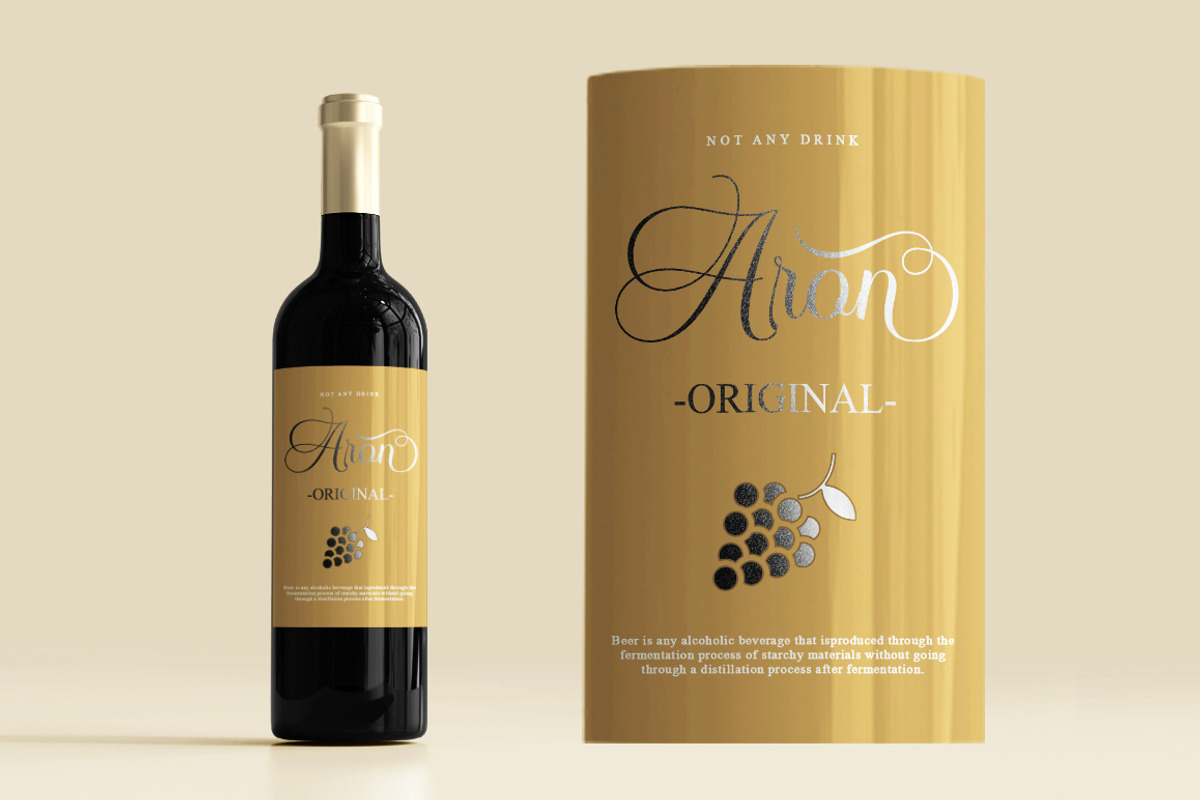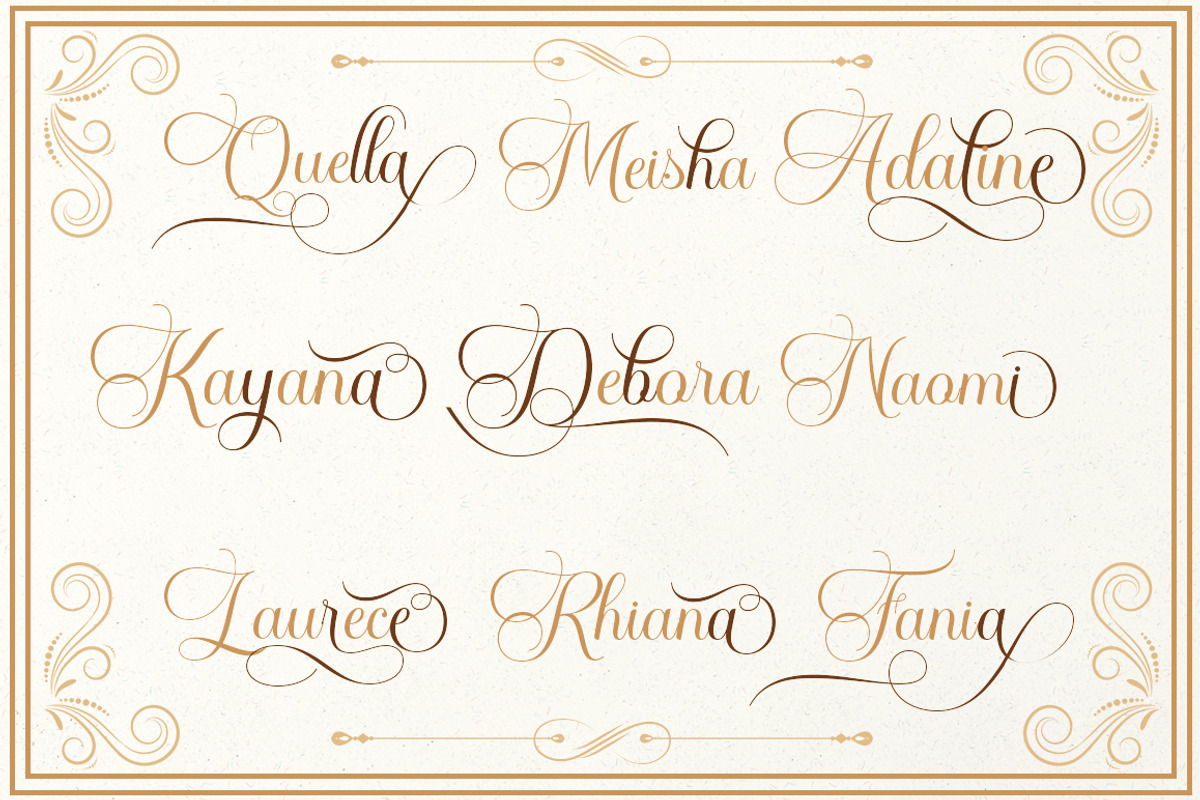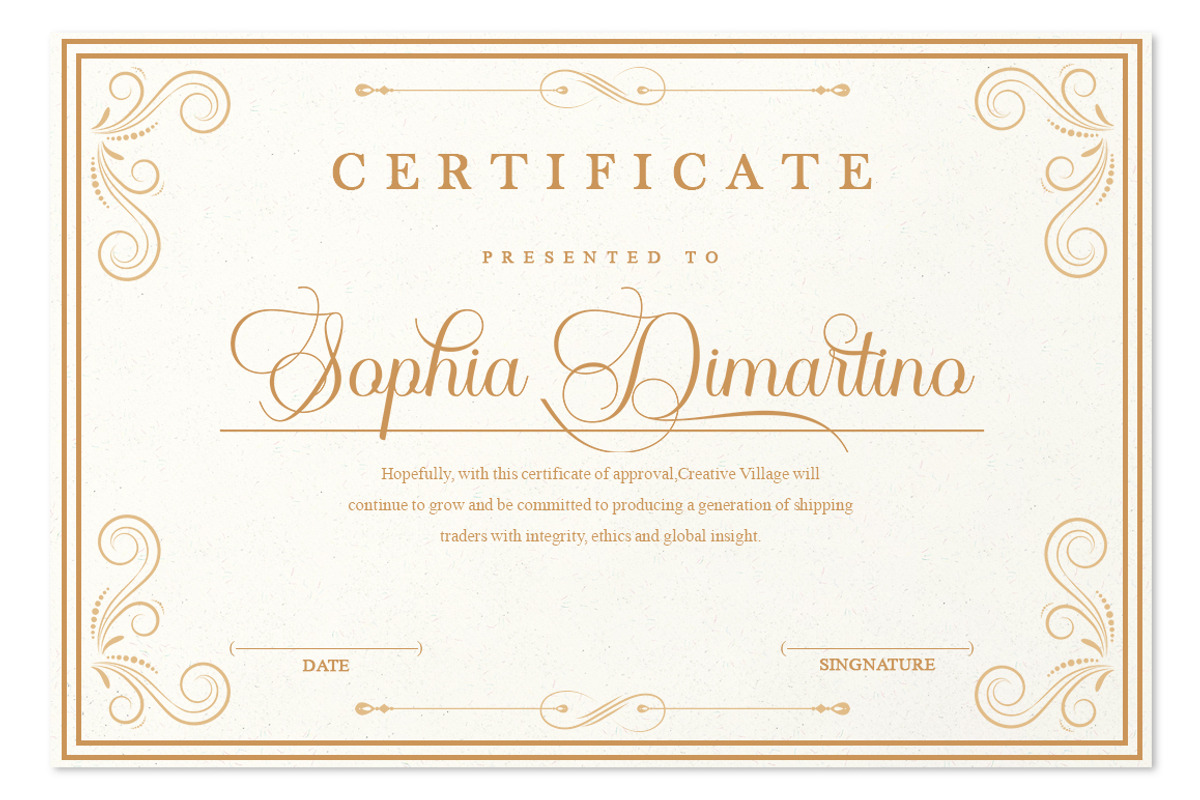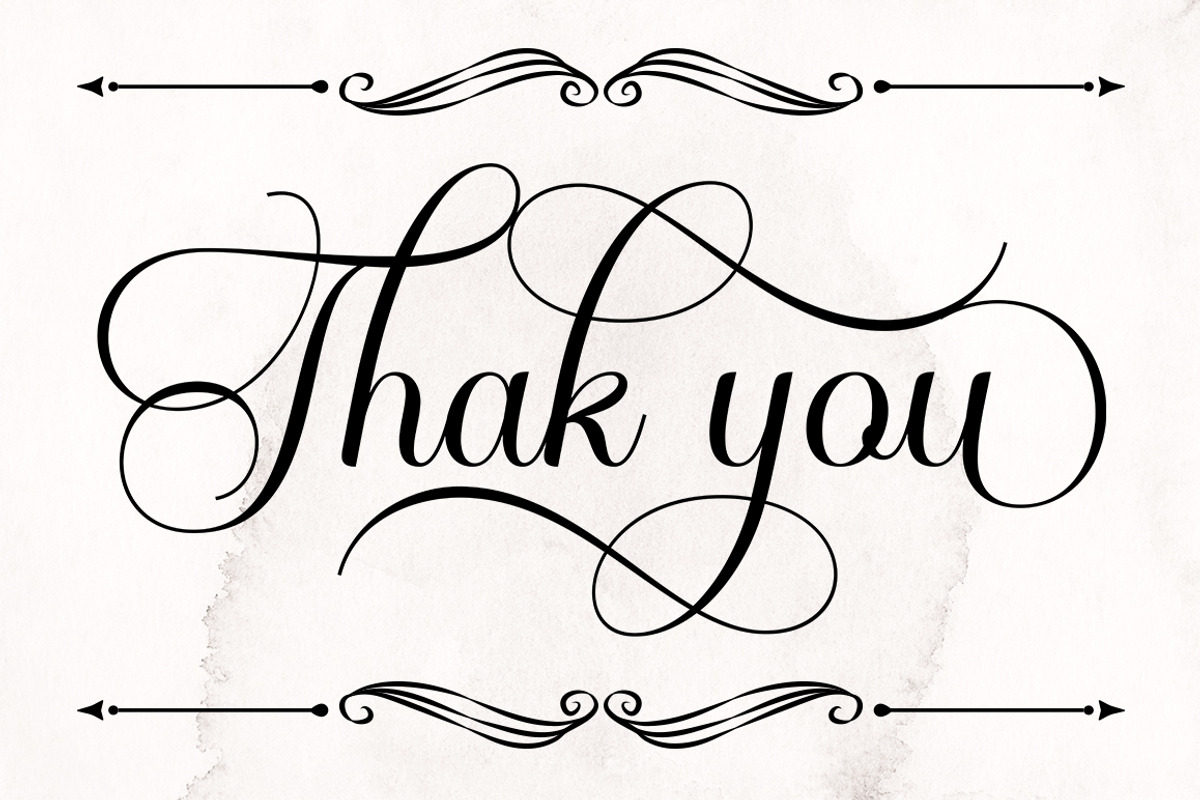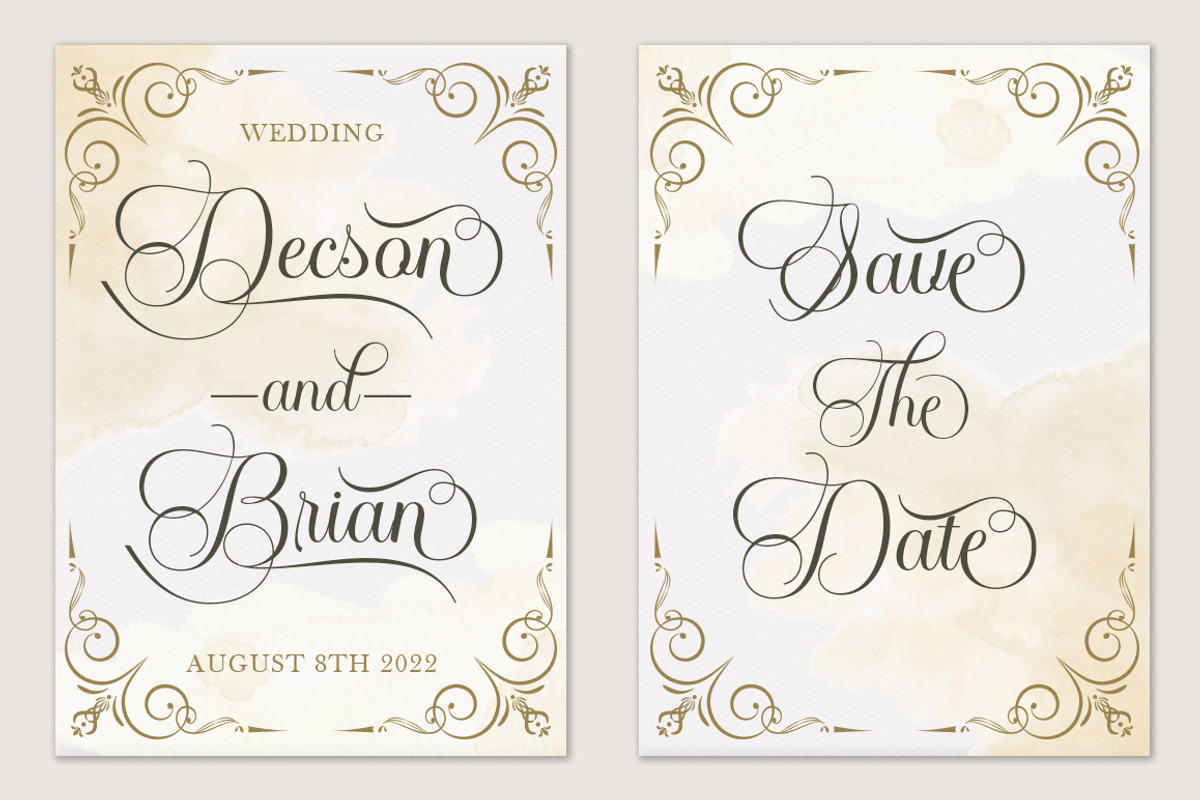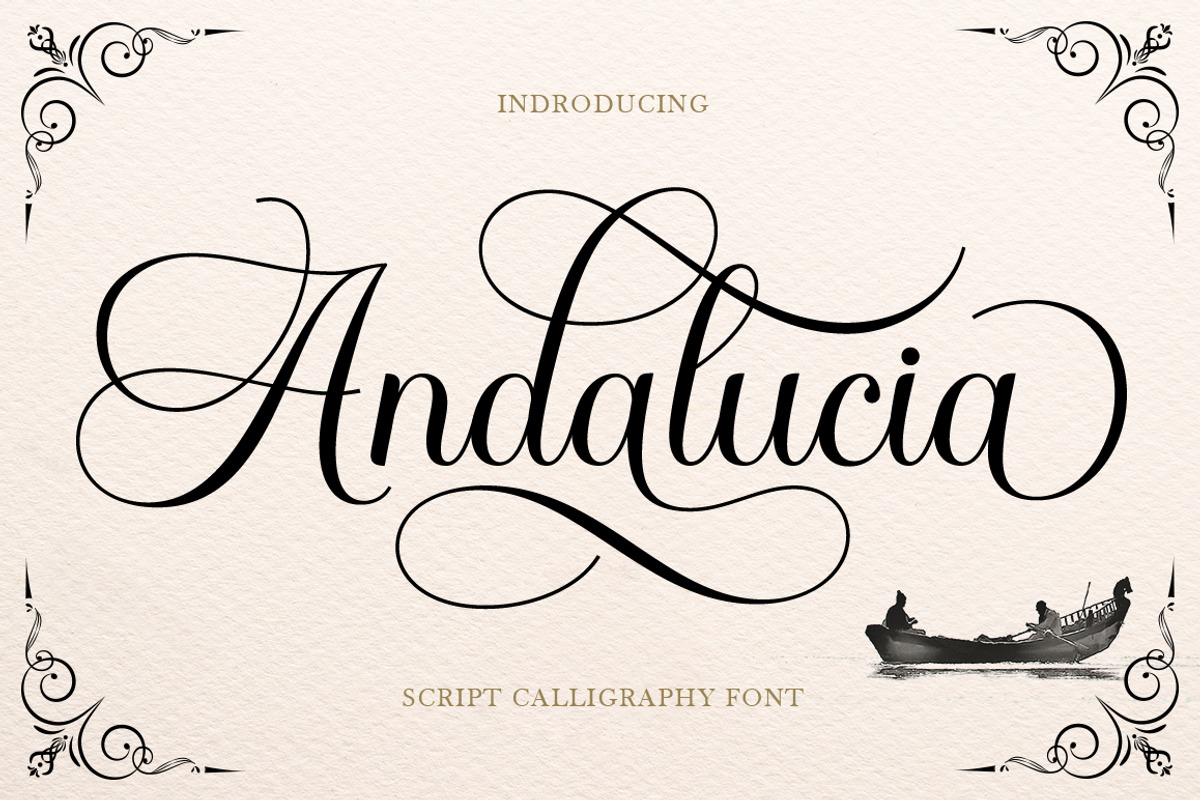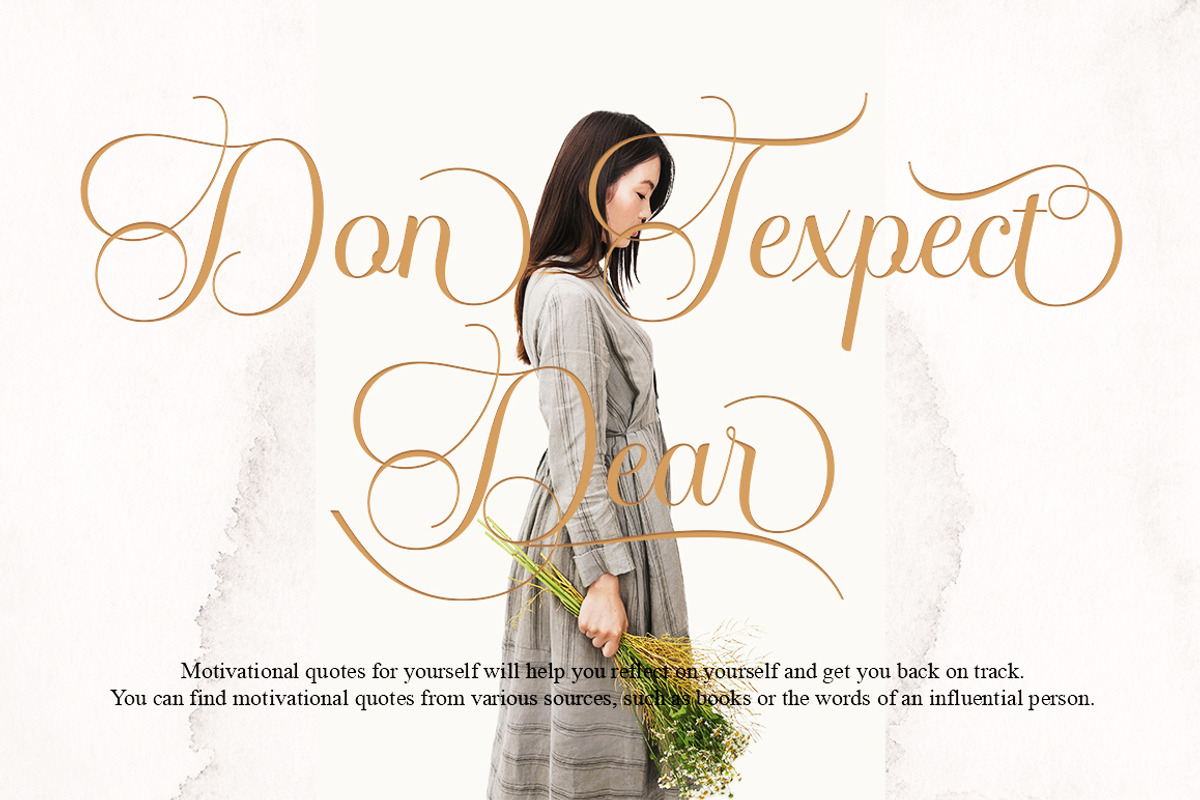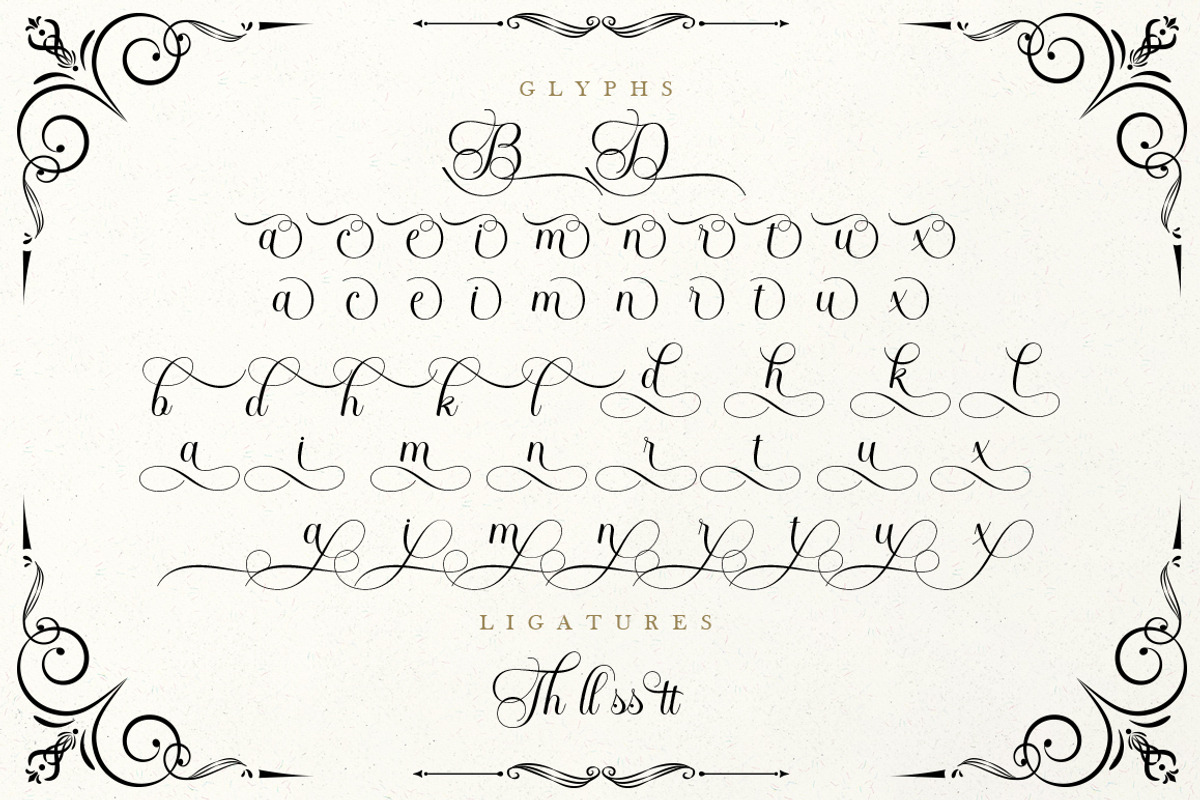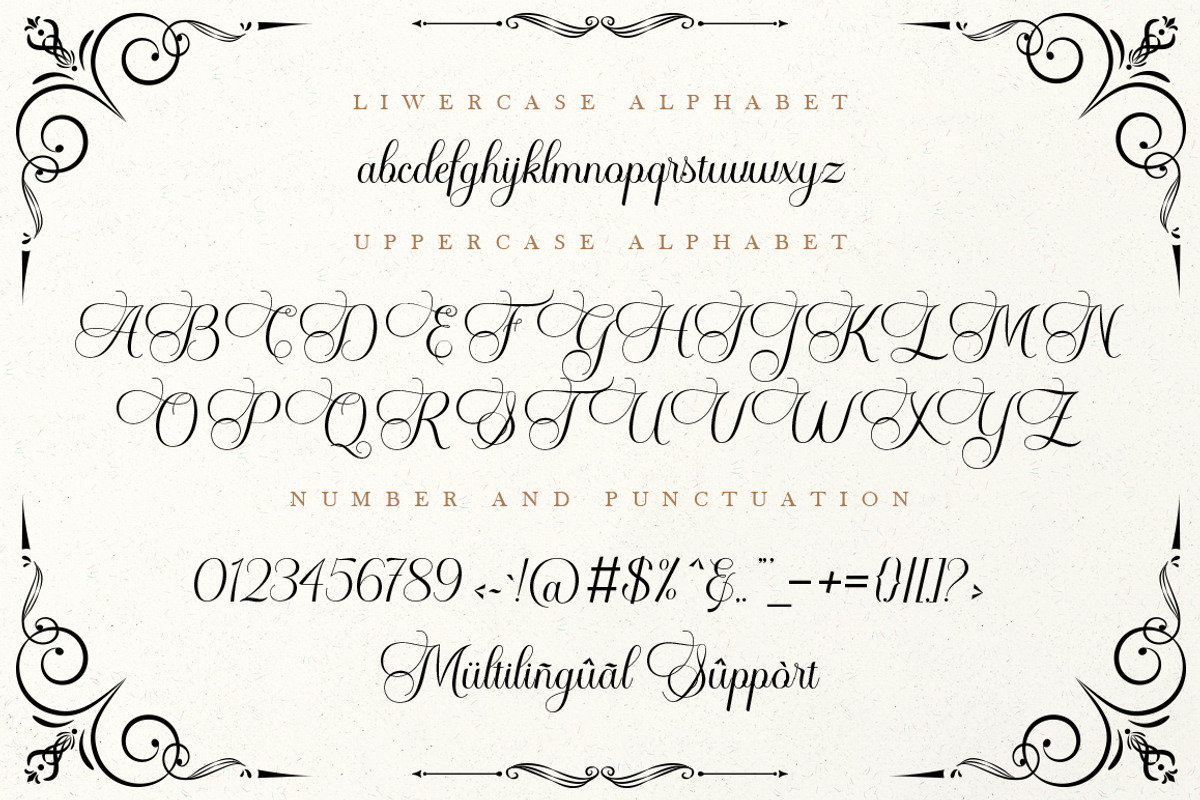
Andalucia
Andalucia – Elegant Calligraphy Script
Andalucia is an elegant calligraphy script font inspired by the graceful beauty of copperplate lettering and expressive hand-drawn strokes. Its refined curves, flowing swashes, and stylish alternate characters create a sophisticated yet personal feel.
Designed to look beautiful and effortless, Andalucia brings a feminine, romantic, and timeless character to every project. Its clean and readable letterforms make it versatile for both elegant headlines and distinctive branding.
Andalucia includes OpenType stylistic alternates, swashes, ligatures, and multilingual support, giving you the freedom to mix and match characters and create unique lettering compositions.
• Elegant calligraphy script style
• Copperplate & hand-lettering influence
• Stylistic alternates & swashes
• OpenType ligatures
• Multilingual support
• Perfect for elegant and romantic designs